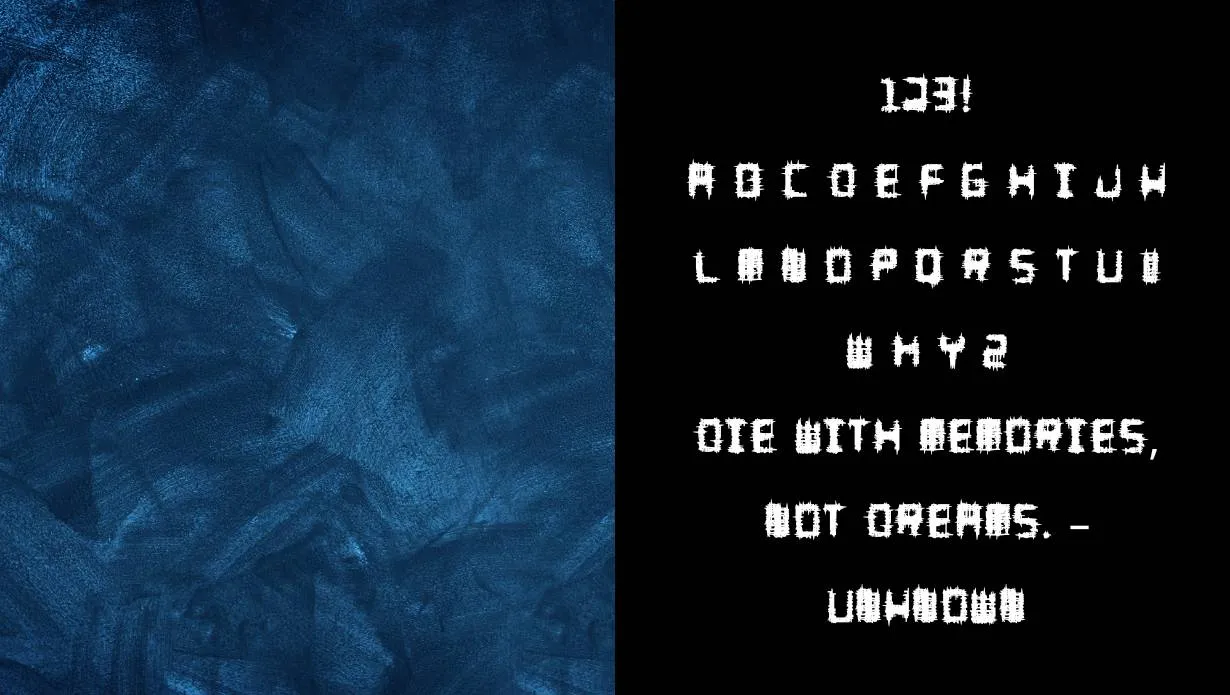
Melee Font is a lively and dynamic font that adds a feeling of movement and strength to your designs. Featuring bold letters and sharp corners, Melee Font is ideal for projects that demand a strong and eye-catching typographic choice.
Whether used for posters, banners, or branding materials, Melee Font adds a touch of intensity and modern flair to the typography.